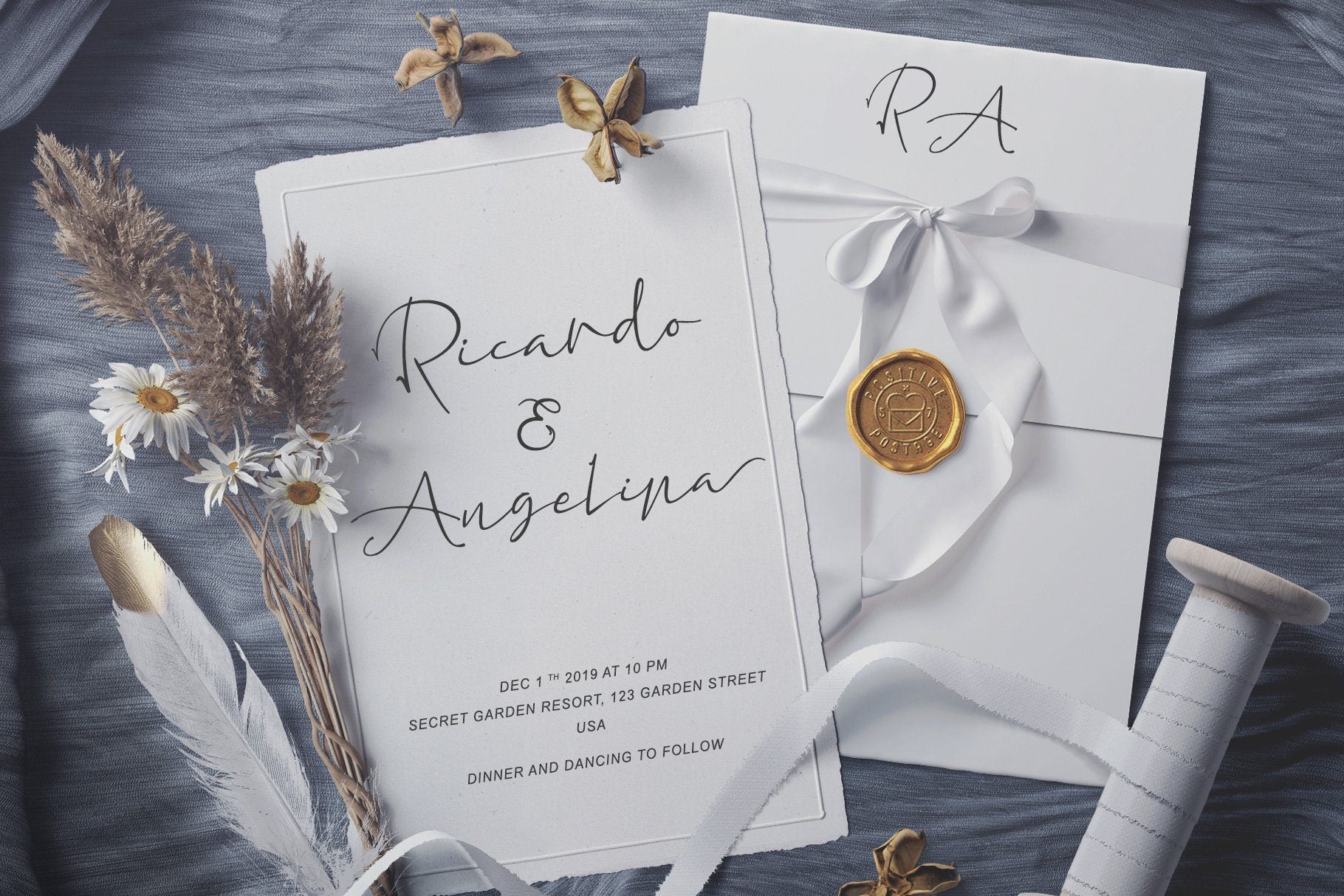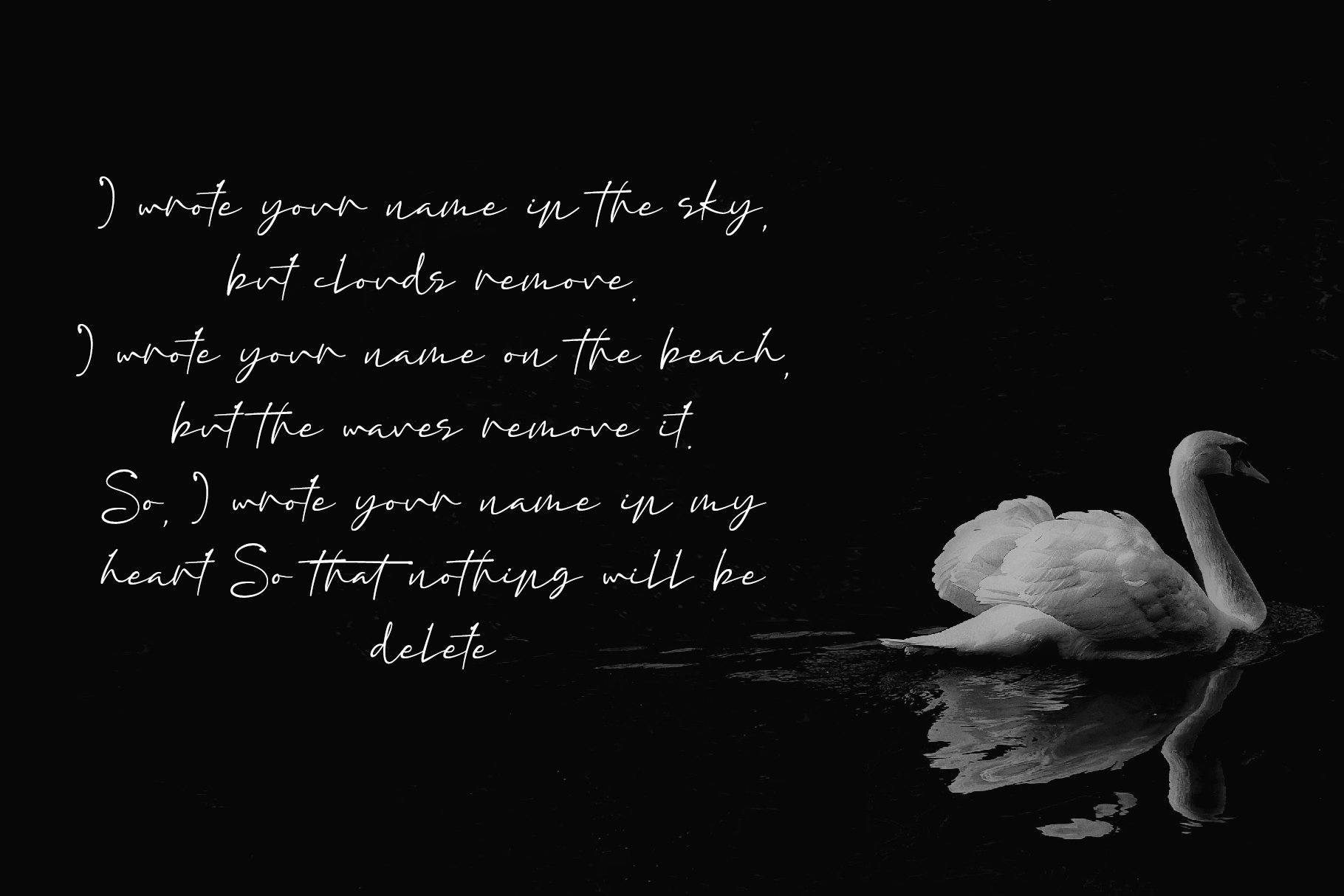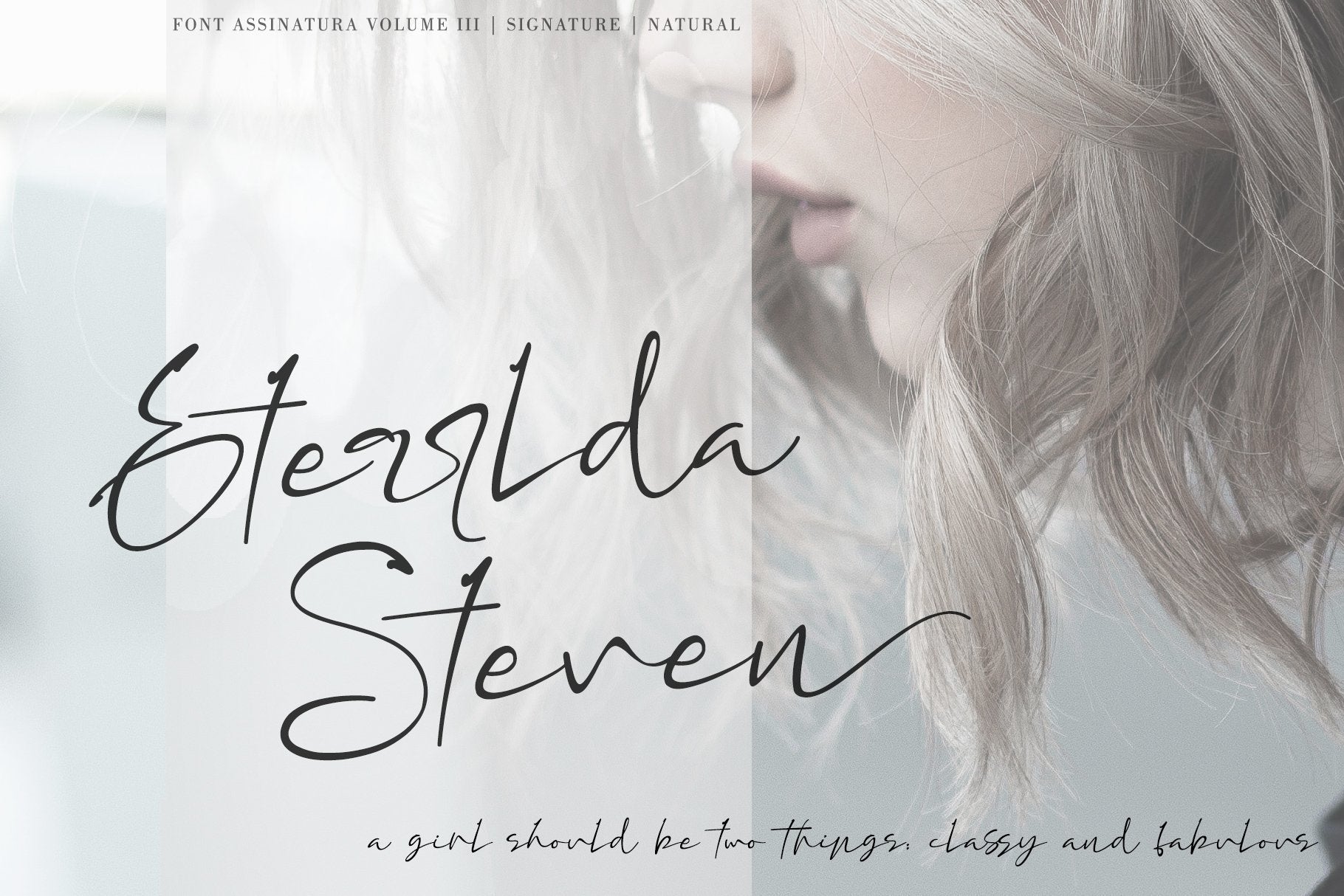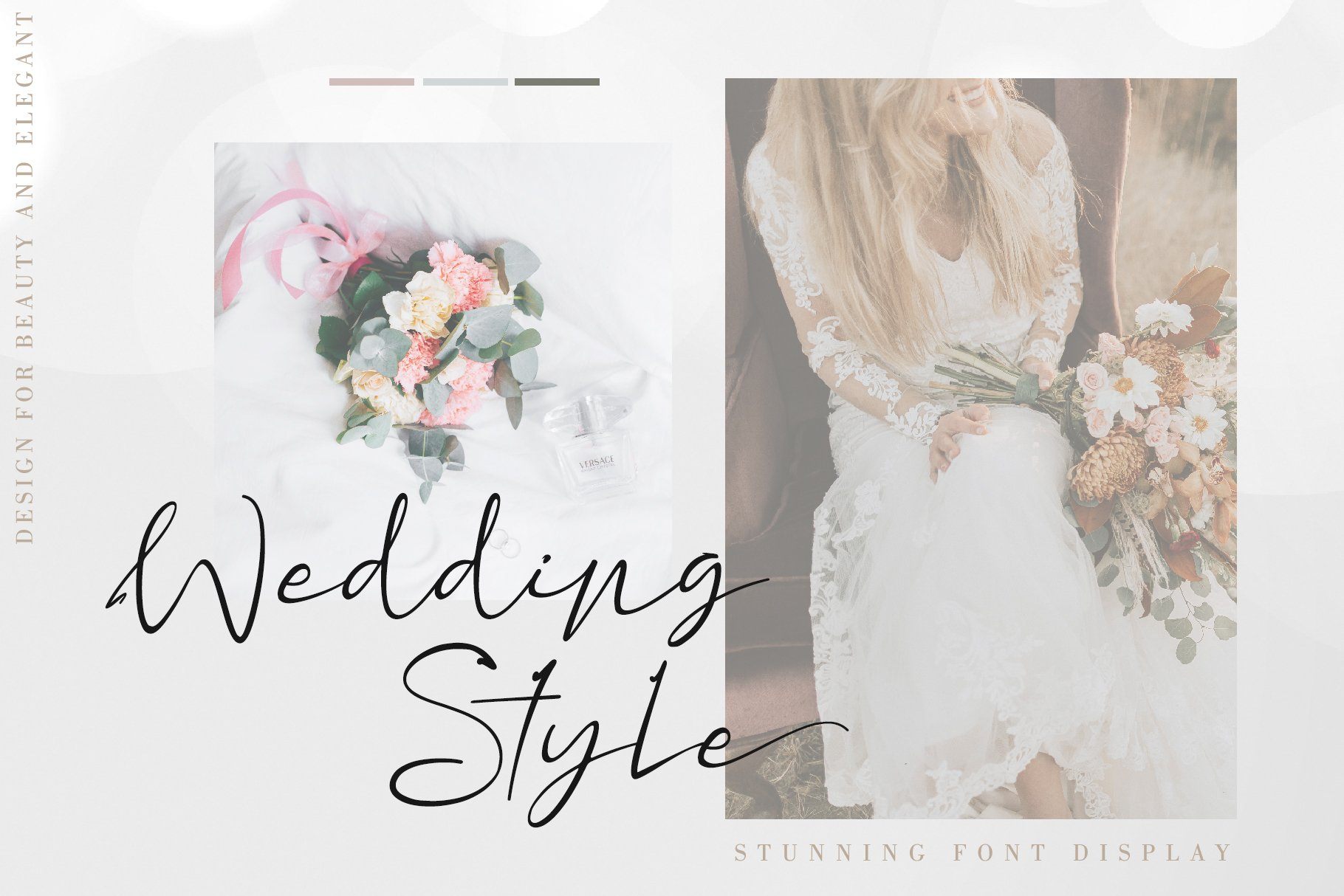
About ASSINATURA
Assinatura comes from Portuguese which means signature. Assinatura Is A Hand-Drawn Script Font With A Natural. This signature script moves with ease across any design, and adds a large dose of confidence and style. Thanks for checking out my store, and feel free to get in touch if you have any questions!  Features : Upper Case & Lowercase Numerals Punctuations (OpenType Standard) Accents (Multilingual characters) Alternates, Ligatures Works on PC & Mac Simple installations Accessible in the Adobe Illustrator, Adobe Photoshop, Adobe InDesign, even works on Microsoft Word. don’t wait anymore, put it in your shopping basket 🙂 and follow me, because there will be many promos! Our other products : BEST SELLER BLACK PINK SIGNATURE ANDORA BRIGITTA HEANFFE EIFFEL IN LOVE ( FONT TRIO) BLACK PINK SUMMER HONG KONG ANGEL MALEFICENT California Street BESTOWENS FAMILY